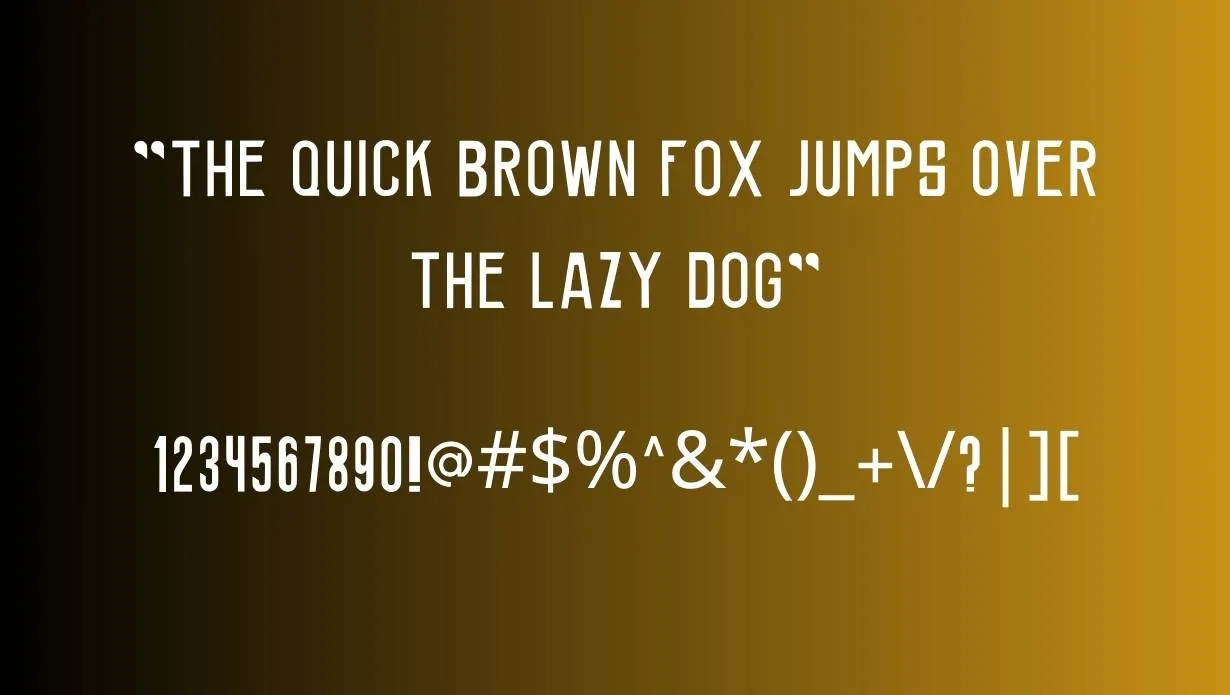
The Flash font brings an energetic and dynamic vibe to designs in Adobe CSS, frequently used in materials related to speed, action, or superhero-themed graphics. Its sharp and edgy appearance infuses designs with movement and energy. In Adobe CSS, this font is utilized for eye-catching headings, banners, and logos, adding a sense of excitement and movement to designs.
| Name | Flash Font |
| Designer | Edwin W. Shaar |